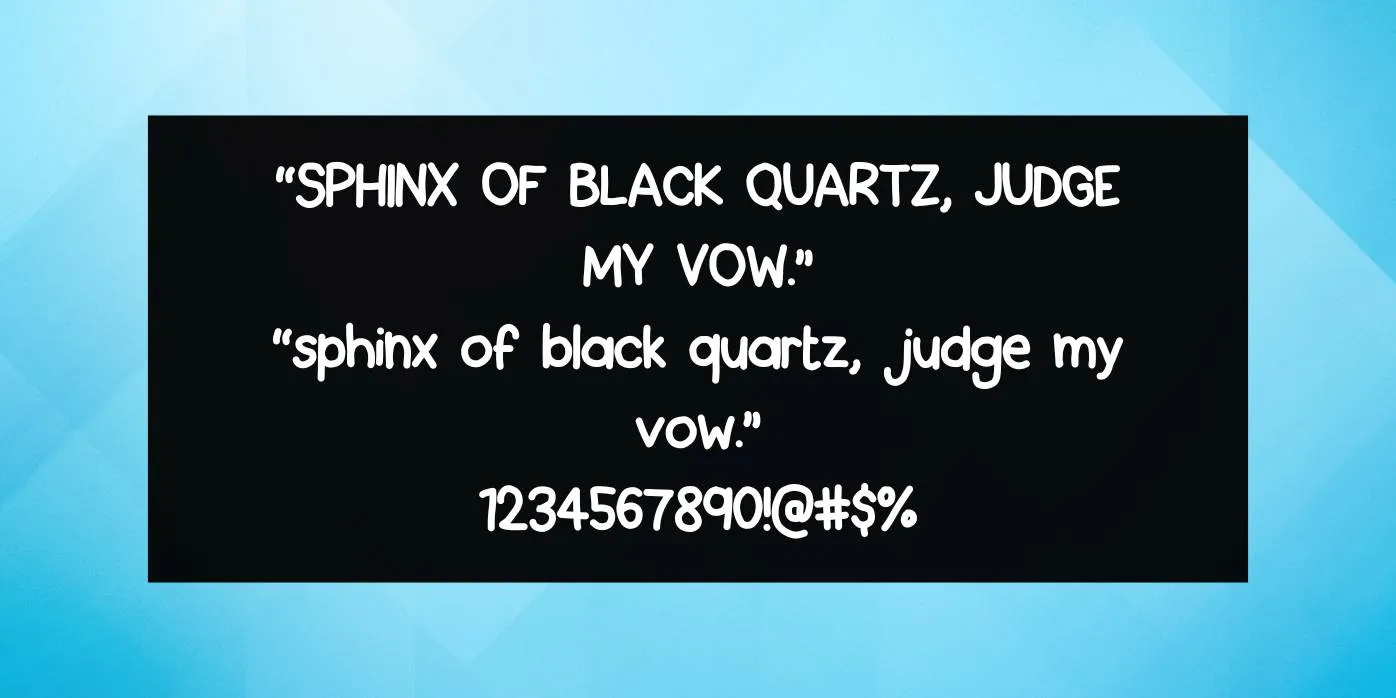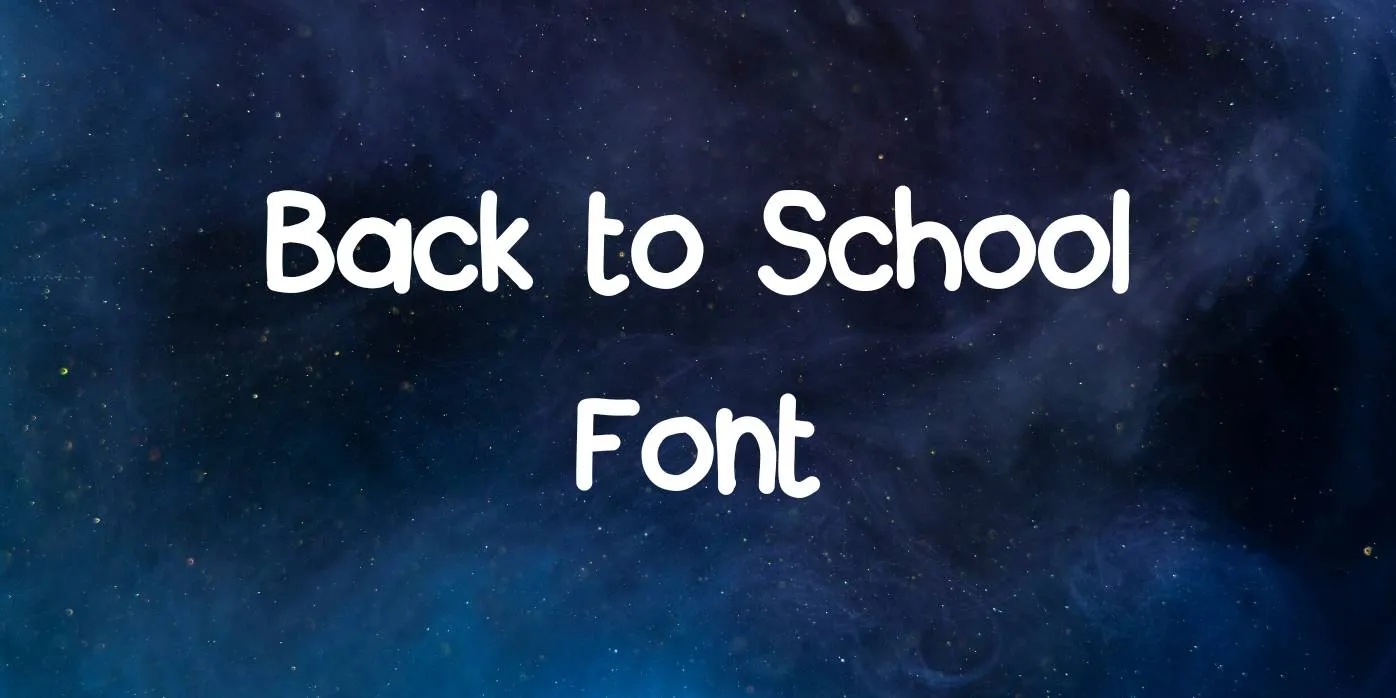
Back to School Font
Here we discuss detailed information about the Back to School font. It is a very interesting font. It was designed by Geronimo Font Studios. This font contains 236 characters, 153 glyphs, and 2048 units per Em.
You can also use it for pairing with other fonts like sunday holiday font to give a more attractive and amazing look to your projects. This stunning typeface represents all projects in a very modern look and romantic look. The basic languages it supports are Greek, Latin, and Cyrillic. You can make any type of project by using this font personal or commercial for commercial you need to get permission from its owner.
Usage You can make so many different projects using this font. It is a very modern font and it has characters, symbols, numbers, punctuations, small letters, capital letters, and special characters. It can make different types of banners, posters, and flyers using this typeface to give a more attractive look to your project. Book cover and comic story cover can be made by using it.
This stunning font is also available to make or edit designs in CSS, Canva, and Adobe Photoshop. It is good for making logos and headlines for different brands. This typeface is a good option for both print and digital media. You can also use this font to make wedding invitations and other events invitations like Valentine’s Day etc.
You can make different projects using this font in the Coral application also. How do I use the Back to School Font? You can make so many different projects by using this font but mostly it is used for making headlines, logos, and large-size projects. How long has the Back to School Font been around?